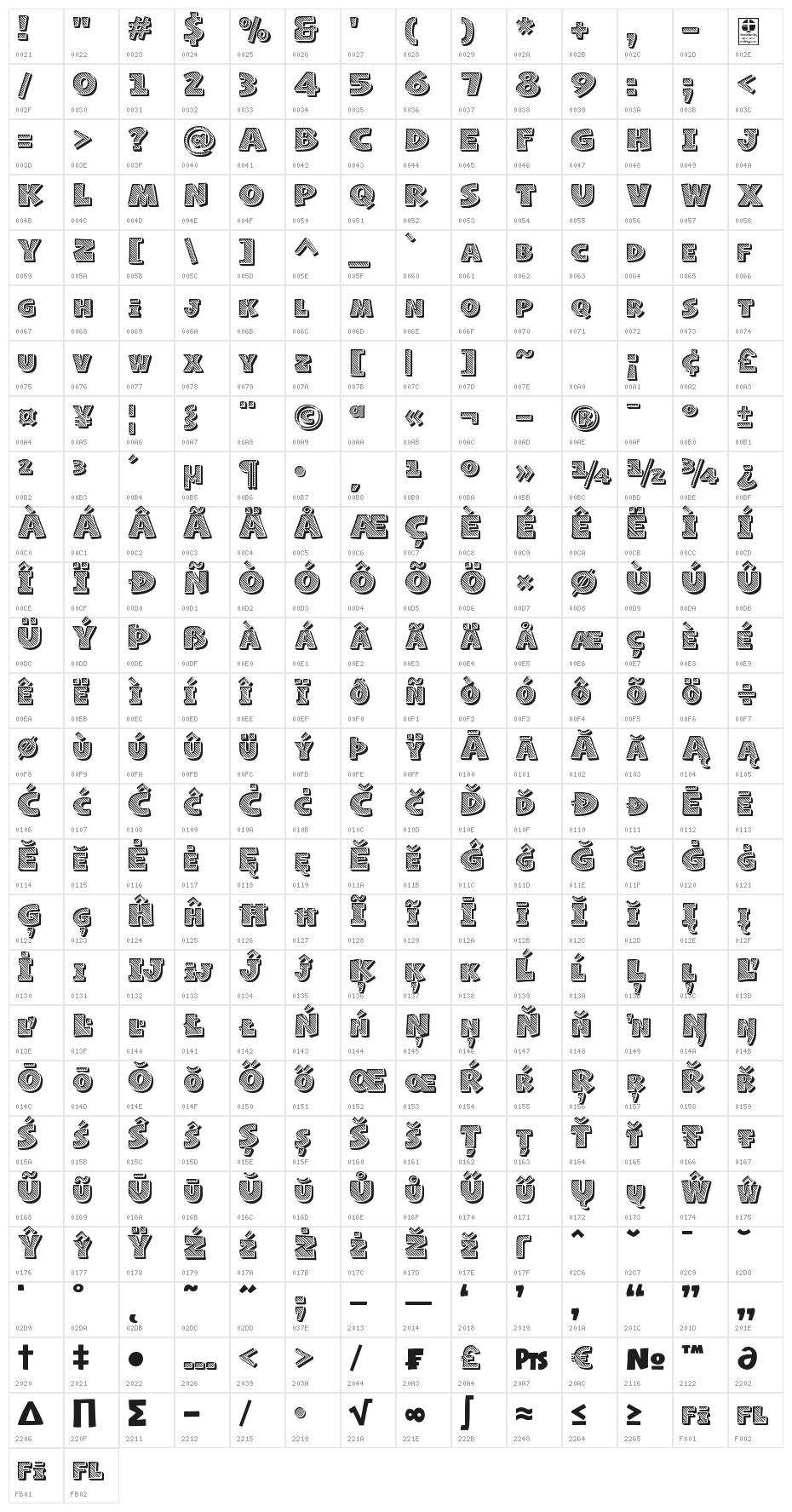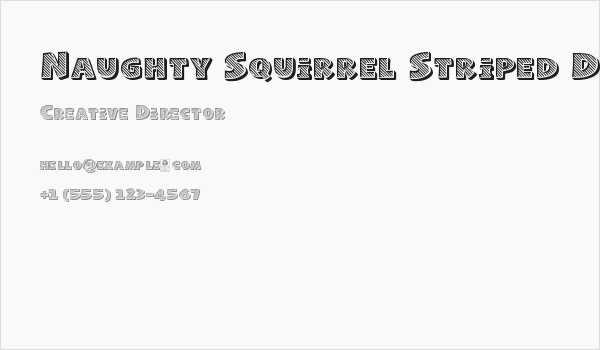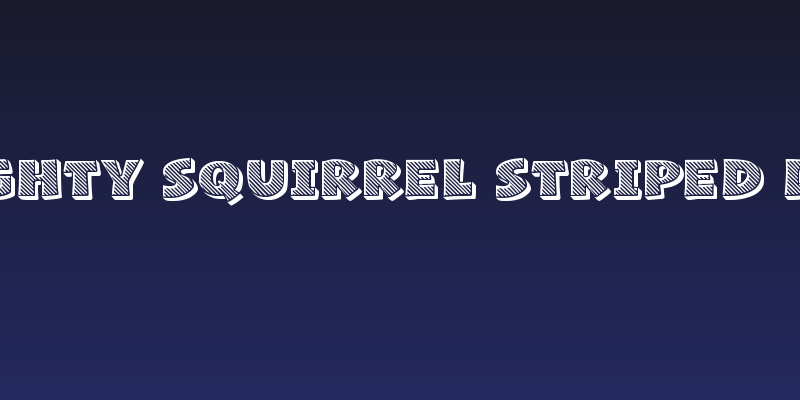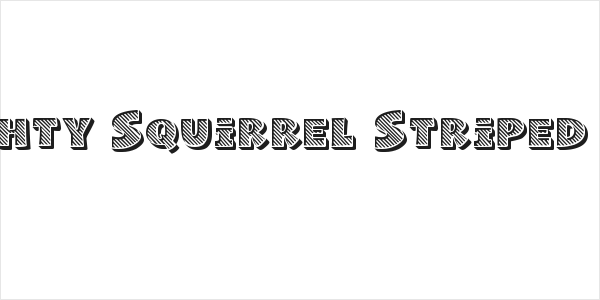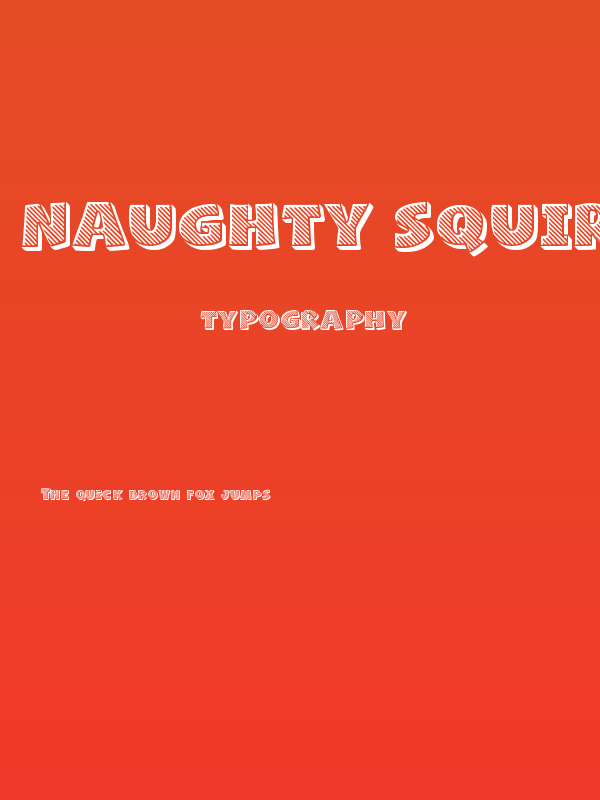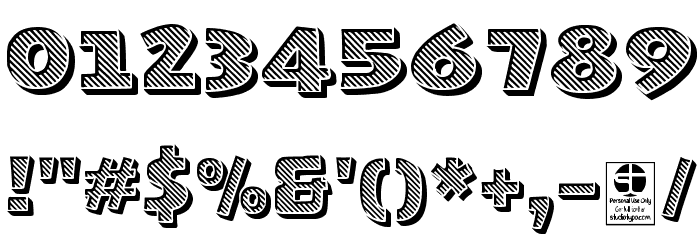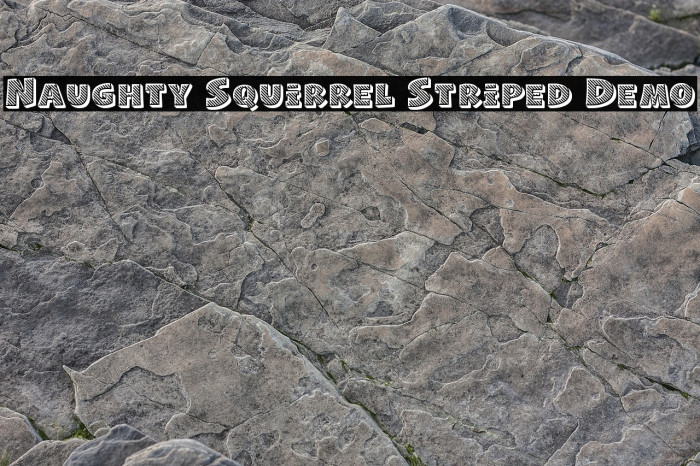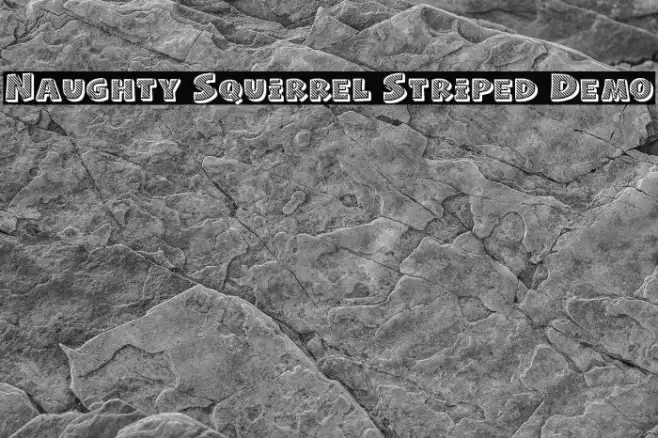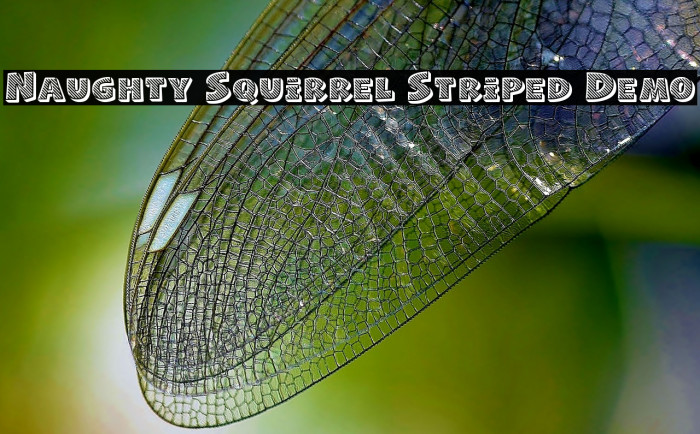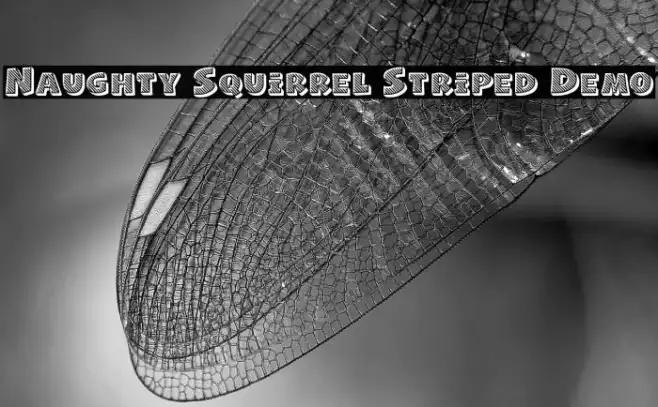
Naughty Squirrel Striped Demo Font
Naughty Squirrel Striped Demo Description
This font features a bold, playful design with a unique striped pattern running diagonally across each character. The letters are uppercase and lowercase, with numerals and a variety of special characters included. The style is distinctly decorative, making it stand out with its thick, shadowed outlines that add depth and dimension. The stripes within each character create a dynamic, eye-catching effect, perfect for projects that require a fun and engaging visual element. The font's boldness and decorative nature make it suitable for creative and informal applications.
| Overall Style | Playful, Decorative |
| Proposed Projects | Ideal for posters, children's book covers, playful branding, and party invitations. |